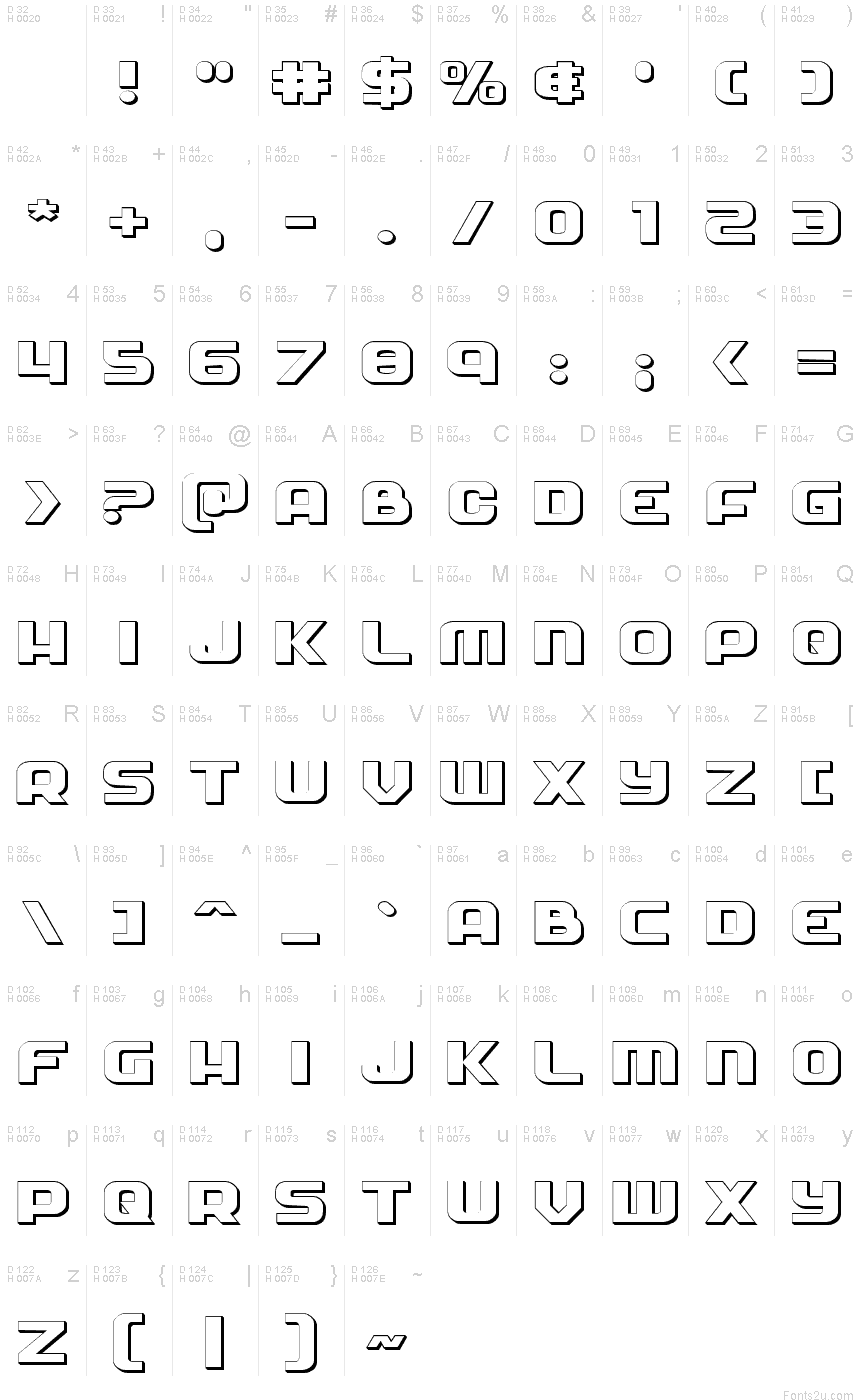
Soldier 3D Expanded by Daniel Zadorozny of Iconian Fonts is a free outlined techno display font with broad, forceful proportions. Its letters combine rounded outer corners with squared interior cuts, producing a clean machine-made silhouette. The wide setting feels built for impact.
Game title cards are its strongest use, especially for futuristic racing, arena combat, or arcade projects. The same sturdy shapes suit esports branding, sports merchandise, and event posters with an engineered edge. Repeated inset lines can echo interface panels or uniform striping, making the lettering part of the project's graphic theme.
Soldier 3D Expanded